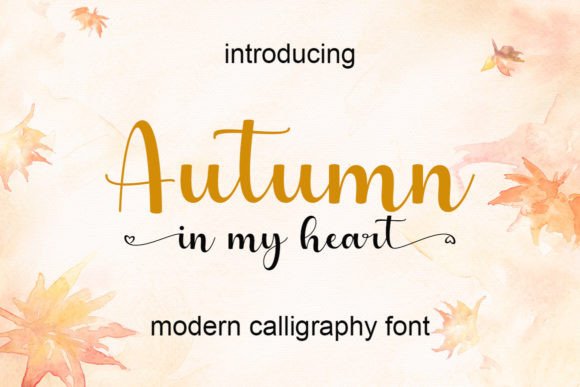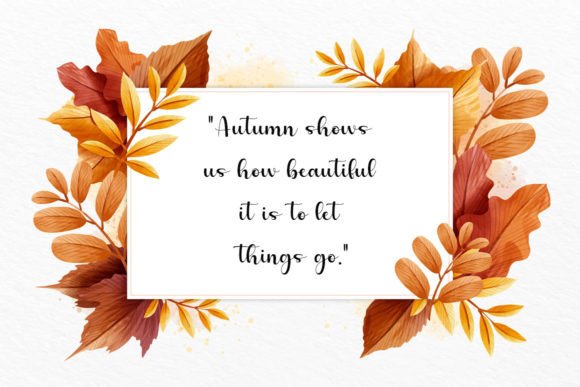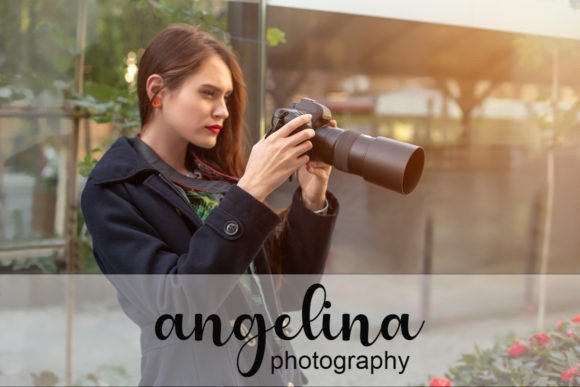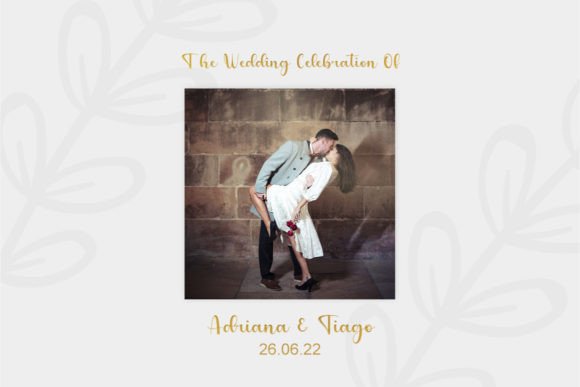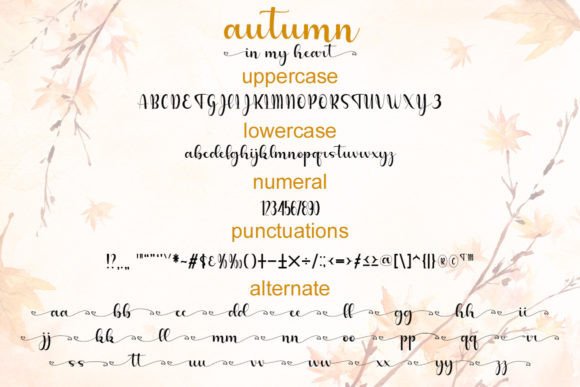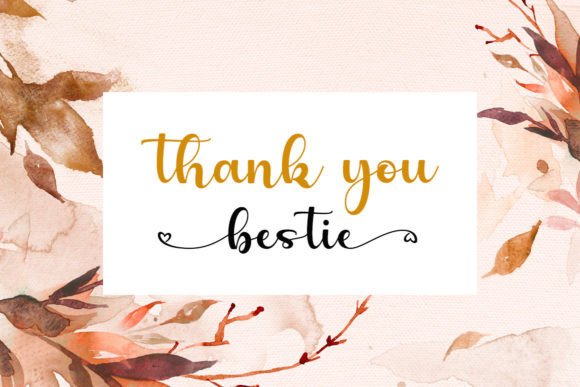
Autumn in My Heart Font
**Autumn In My Heart** is a captivating handwritten font that exudes enchantment and charm. This versatile typeface is an excellent choice for a wide range of design applications, making it perfect for logos, branding, quotes, clothing, tote bags, business cards, websites, and much more. It has the power to capture your heart and elevate your projects to new heights.
The charm of Autumn In My Heart lies in its handwritten style, which adds a personal and artistic touch to your text. Its flowing and well-crafted characters make it a fantastic choice for branding and logos, where it can infuse your brand identity with a unique and memorable quality.
Quotes and phrases take on a new level of elegance and emotion when presented in the Autumn In My Heart font. Whether you’re creating inspirational graphics, posters, or social media content, this font enhances the message with its enchanting appeal.
In the world of fashion and merchandise, Autumn In My Heart shines on clothing, tote bags, and business cards, helping you establish a strong and distinctive presence. The font’s handwritten charm adds a sense of authenticity and creativity to your products.
Websites benefit from the font’s readability and unique character, making it suitable for headlines, banners, and other text elements. Autumn In My Heart can enhance the visual appeal of your website, leaving a lasting impression on visitors.
In summary, Autumn In My Heart is a captivating handwritten font that can transform your projects into works of art. Its versatility and enchanting style make it a perfect choice for various design needs, from branding and logos to quotes, clothing, and websites. Fall in love with this font, and let it elevate your creative endeavors to the highest level.